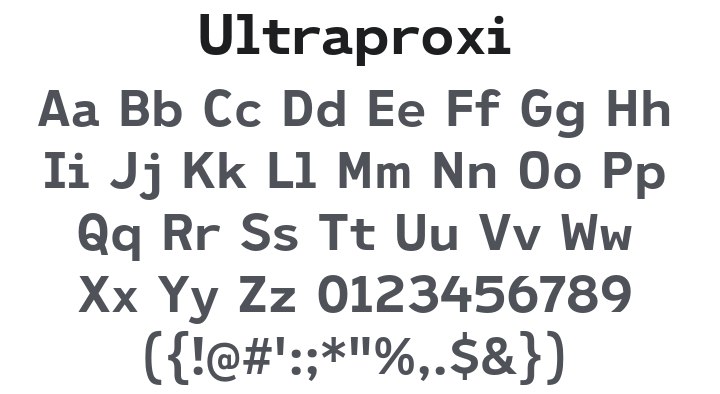
Ultraproxi Font Family
About Ultraproxi
Somewhere in the 1960s, an IBM 1403 chain printer clattered to life, hammering data onto green-bar paper with mechanical precision. Ultraproxi channels that moment—the staccato rhythm of steel and ink—into a typeface built for today.